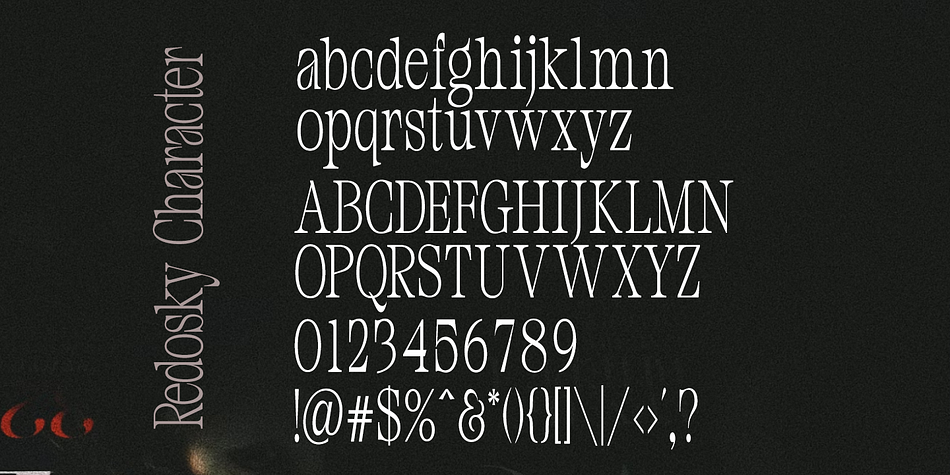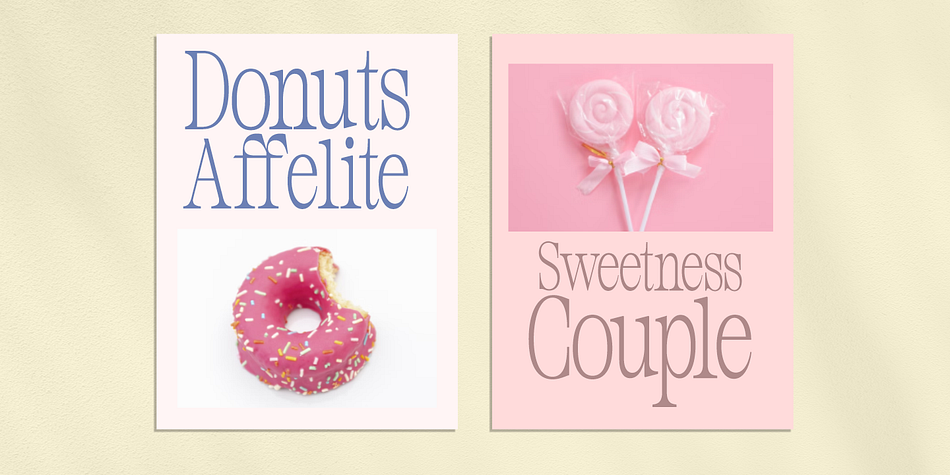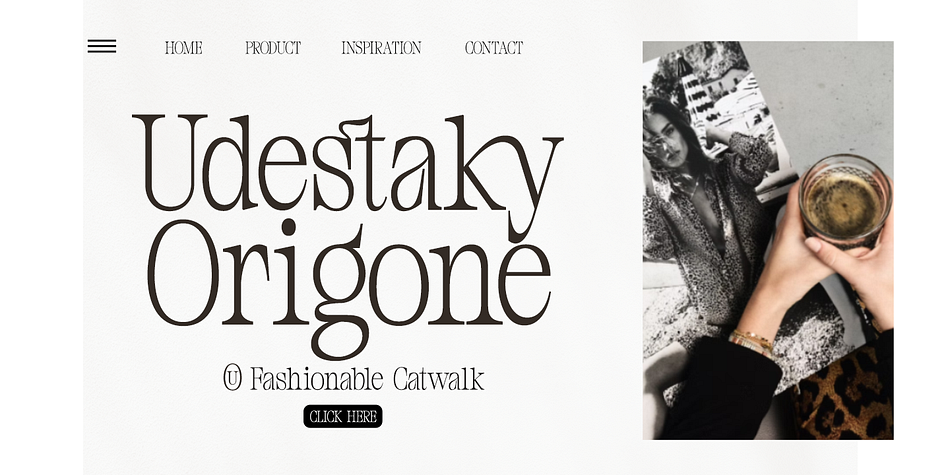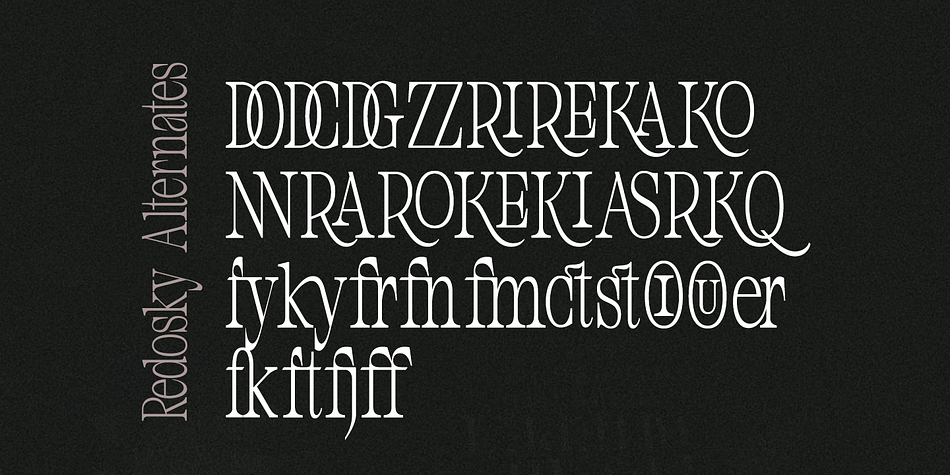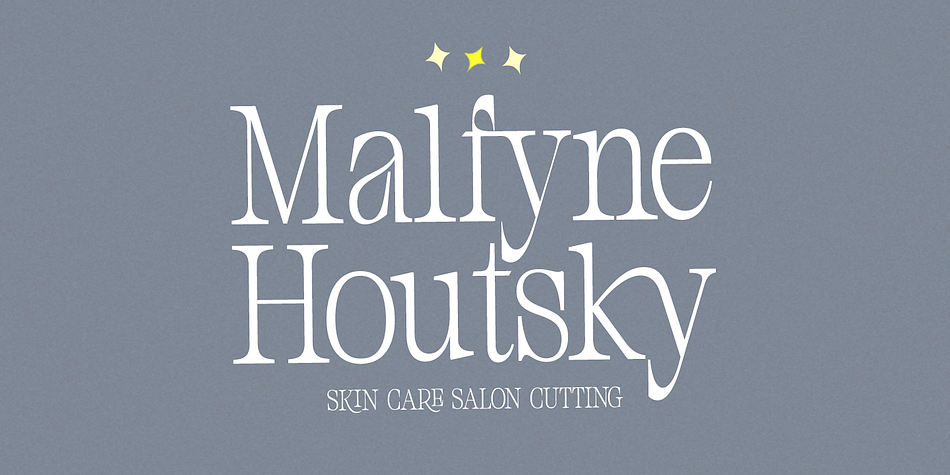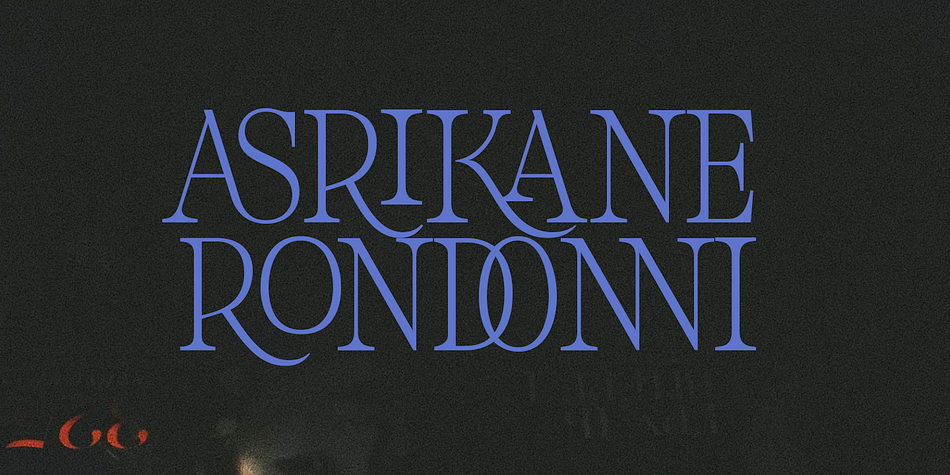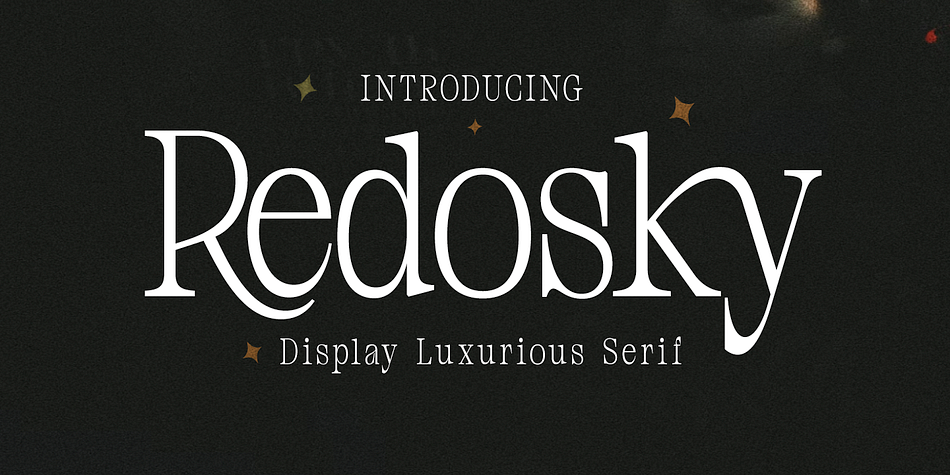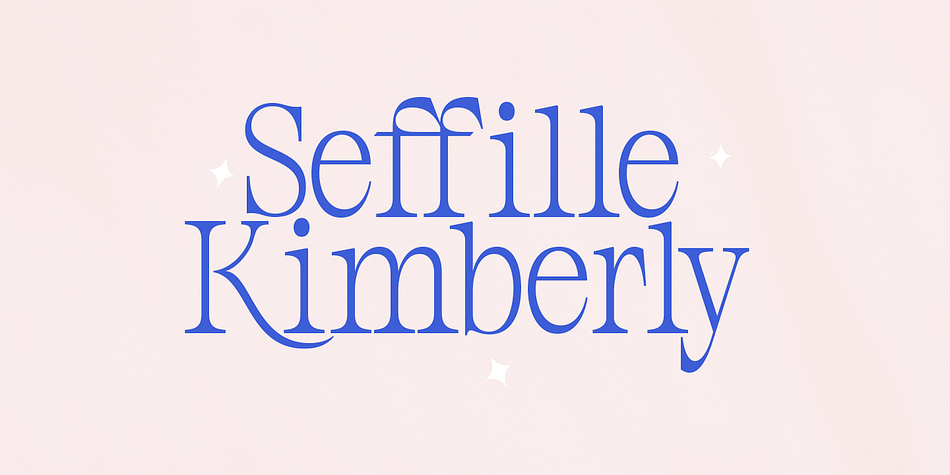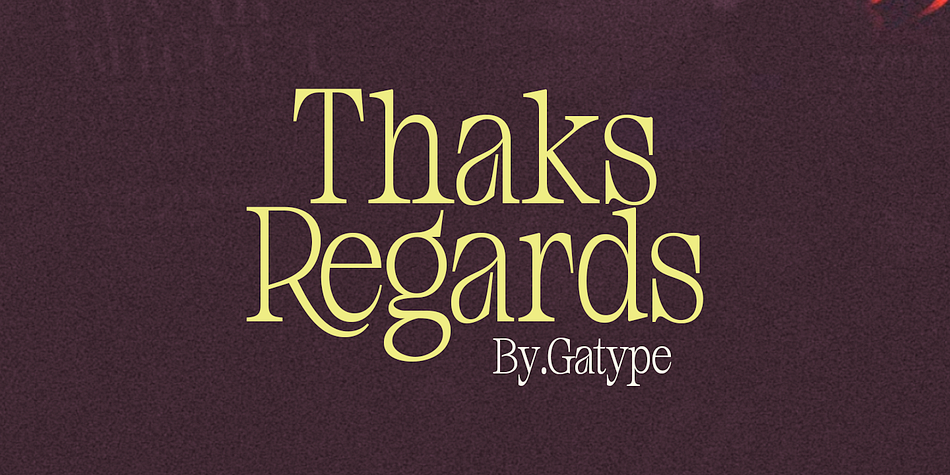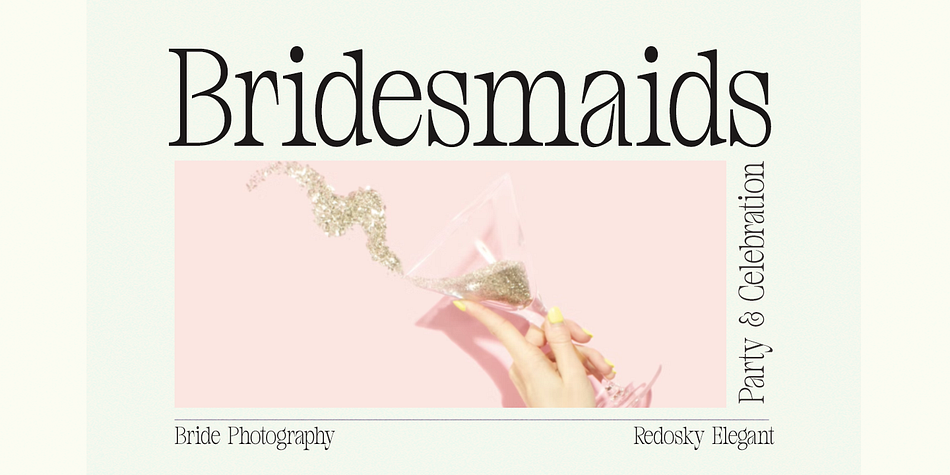
Redosky
Redosky is a serif font family published by Gatype.
Redosky is a versatile font with a clean, sleek serif form. The typeface as a whole is strong in conveying order and harmony between letters. Best used as Instagram, poster, web design, magazine, logo or product.
-Letters, Numbers, Punctuation, Accent Ligatures, Swash, Alternatives